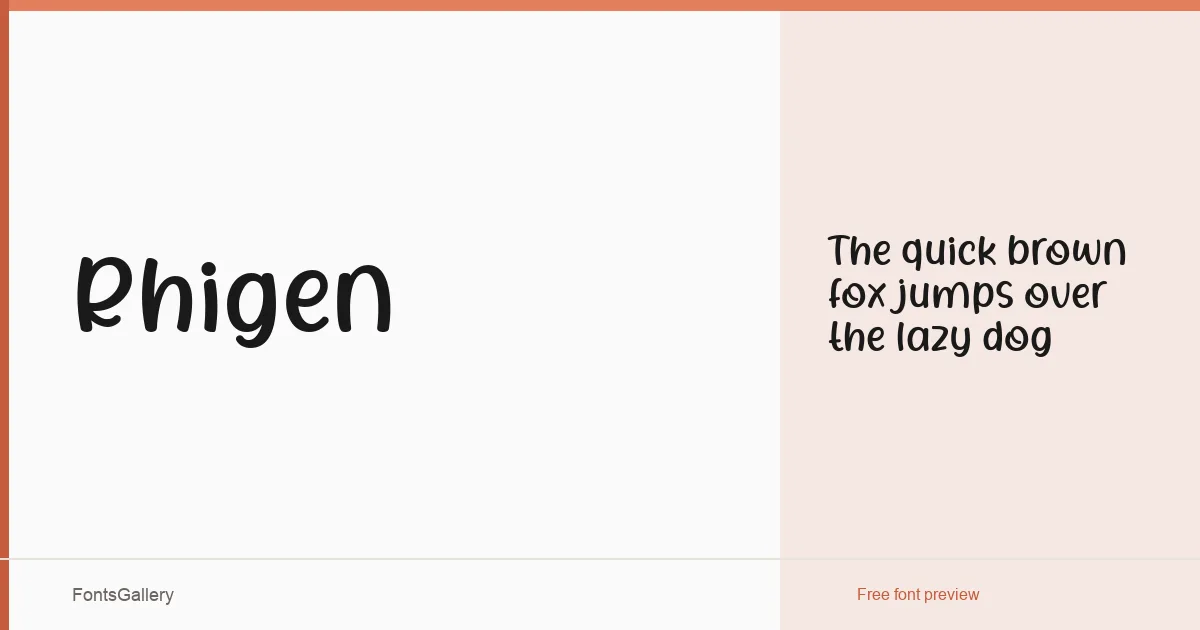
About Rhigen Font
Rhigen is a handwritten typeface crafted by designers Keithzo and Situjuh Nazara under the 7NTypes foundry. It blends a playful, whimsical spirit with a modern sensibility, making it a distinctive choice for creative projects. The result is a font that feels both personal and contemporary, striking a balance between expressive character and versatile appeal.
Rhigen's letterforms carry the natural flow and warmth expected of a handwritten typeface, infused with a modern edge that keeps it feeling fresh and current. Its whimsical qualities are reflected in the organic curves and lively rhythm of its characters, while its playful mood ensures the font communicates energy and personality. The overall design strikes a welcoming, human tone without sacrificing visual sophistication.
Rhigen is ideally suited for logos, branding projects, social media graphics, greeting cards, and T-shirt designs where a spirited, handcrafted aesthetic is desired. Its expressive nature helps brands and creators stand out with a touch of personality and charm. For a well-rounded typographic pairing, consider combining Rhigen with Aresink for a harmonious handcrafted feel, or with Helvetica to create a striking contrast between organic warmth and clean structure.